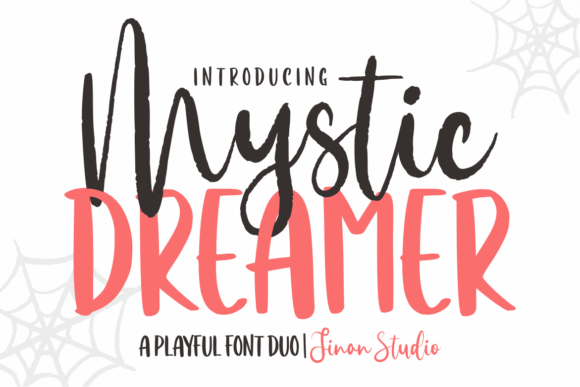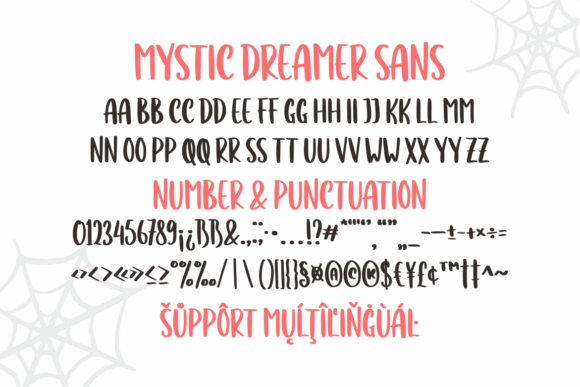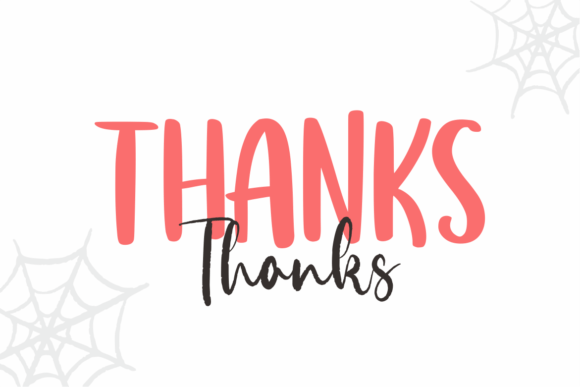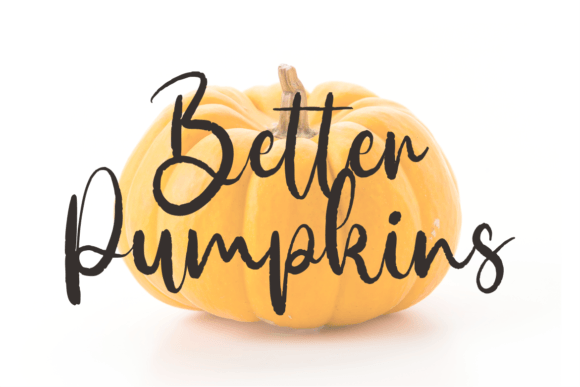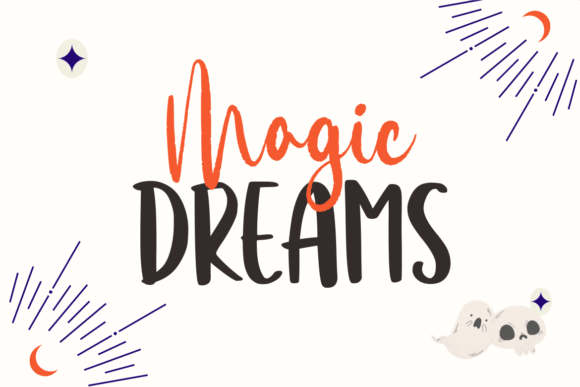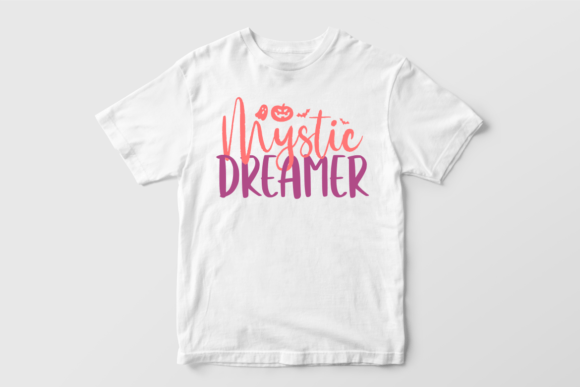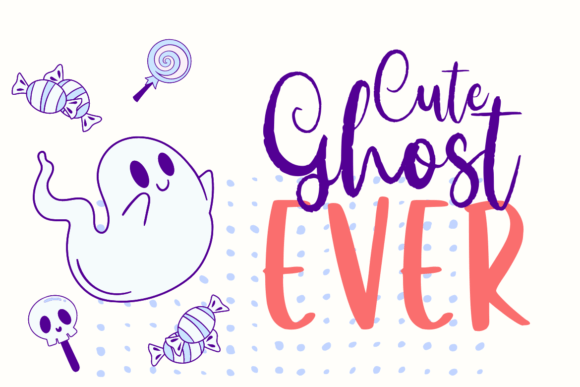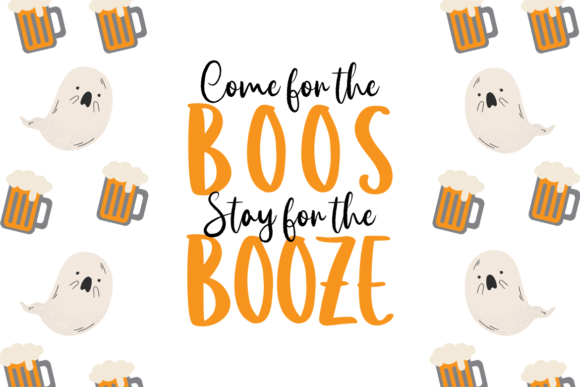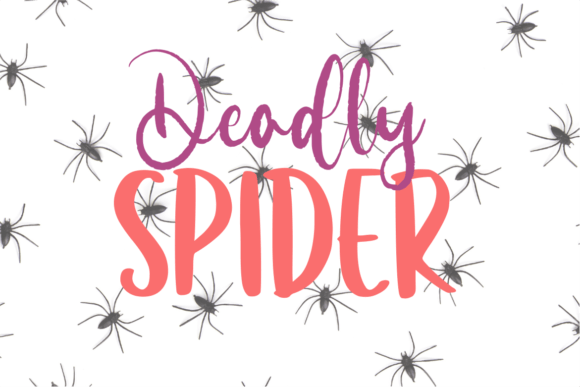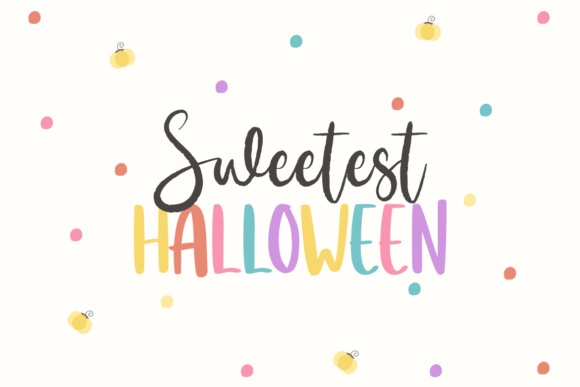
Mystic Dreamer Duo Font
About Mystic Dreamer Duo Font
**Mystic Dreamer Duo** is a captivating font duo that strikes the perfect balance between spooky, cute, and playful. This combination includes both a whimsical script font and a display sans-serif font, making it an ideal choice for all your horror-themed and Halloween projects. Whether you’re working on spooky invitations, eerie posters, playful Halloween decorations, or any project that requires a touch of mystique, Mystic Dreamer Duo has you covered.
The script font in this duo exudes a sense of whimsy and charm with its handwritten style. It adds a playful and mysterious quality to your text, making it perfect for Halloween-themed invitations, greeting cards, and party decorations. The script font captures the essence of a mystical dream, making it ideal for creating an enchanting atmosphere.
The display sans-serif font provides a clean and contemporary counterpart to the script font. Its simplicity and readability ensure that your text stands out, making it suitable for headlines, banners, and other display elements in your designs. This sans-serif font complements the script font beautifully, allowing you to create cohesive and visually striking layouts.
Mystic Dreamer Duo is versatile and can be used across various design applications, from digital graphics to print materials. It’s perfect for spooky posters, web graphics, social media posts, and more, where it adds a dash of intrigue and personality to your content.
In summary, Mystic Dreamer Duo is a captivating font duo that captures the spirit of Halloween and mystery. Its combination of a whimsical script font and a clean sans-serif font offers versatility and style for a wide range of design projects. Whether you’re embracing the spooky season or simply want to infuse your projects with a touch of mystique, Mystic Dreamer Duo is your go-to choice for playful and enchanting typography.